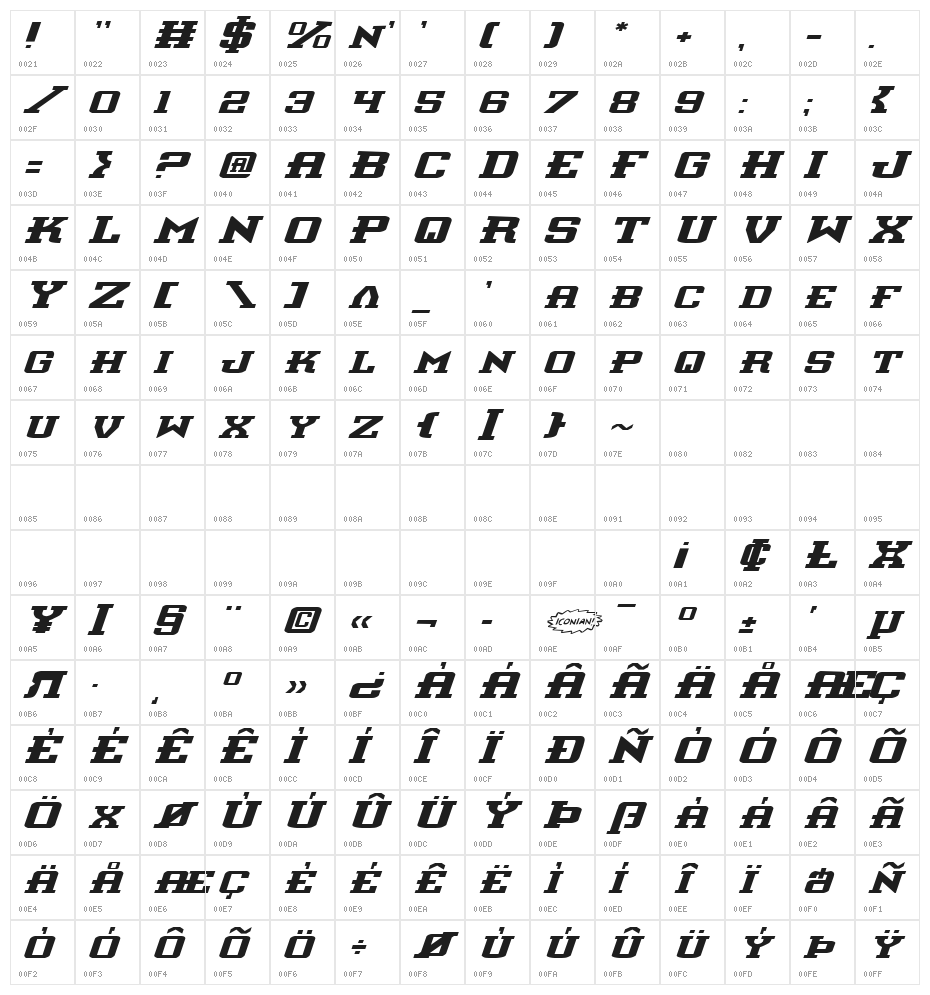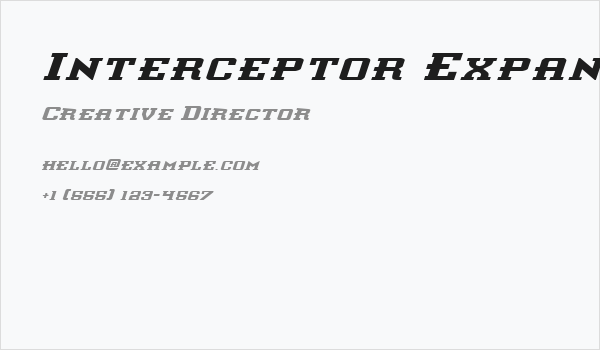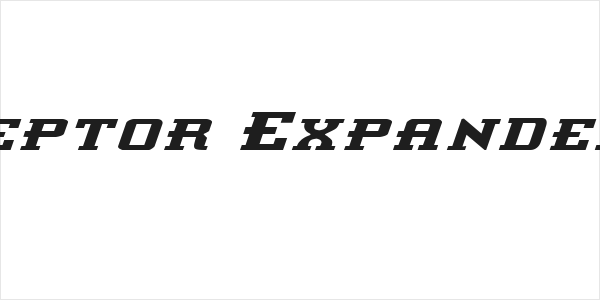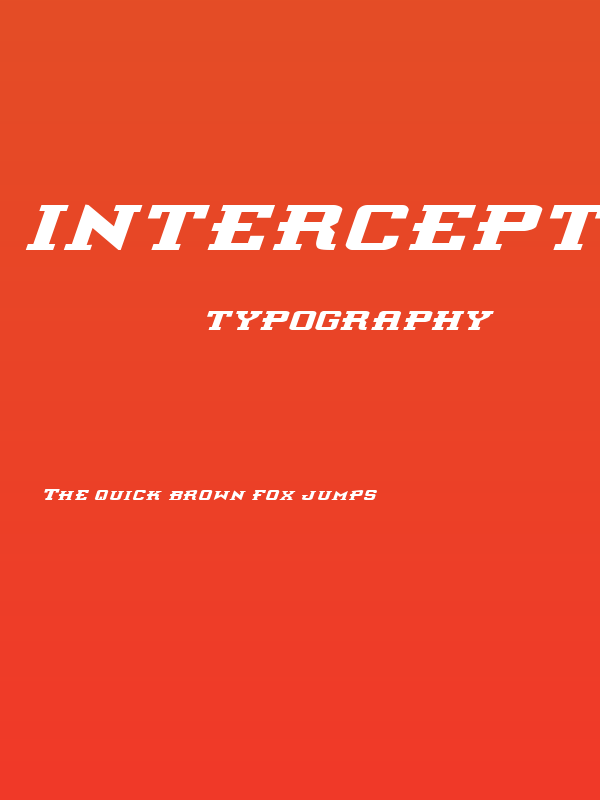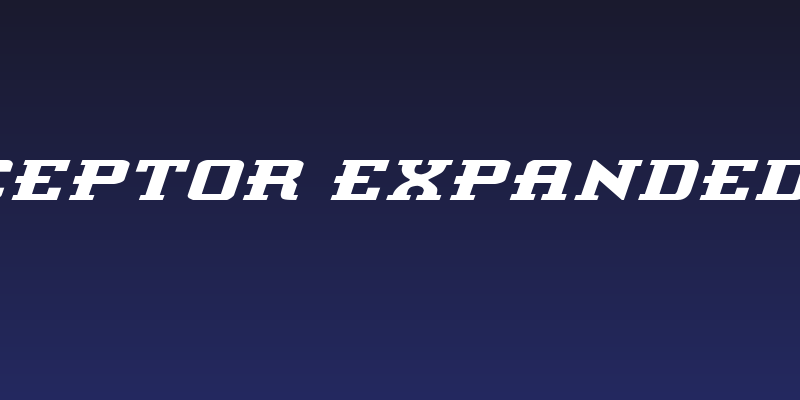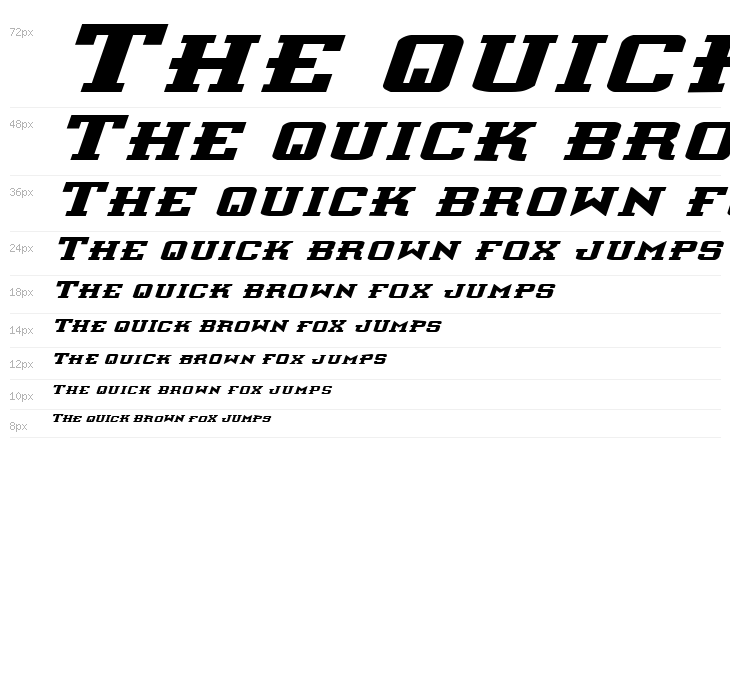
Interceptor Expanded Italic Font
Interceptor Expanded Italic Description
This font features a bold and dynamic style with an italic slant, giving it a sense of motion and energy. The characters are expanded, providing a wide stance that enhances readability and impact. The design incorporates sharp angles and clean lines, creating a modern and assertive appearance. The uppercase and lowercase letters maintain a consistent style, with numerals and special characters complementing the overall aesthetic. This font is ideal for making strong visual statements.
| Proposed Projects | Ideal for sports branding, automotive designs, dynamic posters, and headlines that require a strong visual impact. |